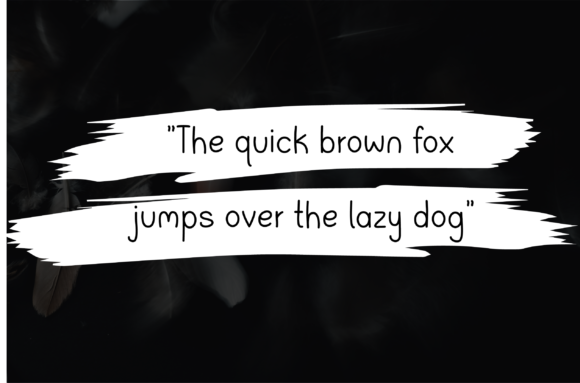
Introducing Good Dogo Font: The Perfect Handwritten Font for Chalkboard Quotes and Teaching Materials
Are you a designer, crafter, or educator looking for a font that can add a personal and realistic touch to your designs? Look no further than Good Dogo Font! This adorable and simple lettered handwritten font is perfect for creating chalkboard quotes, teaching materials, and other designs that require a warm and authentic feel.
What is Good Dogo Font?
Good Dogo Font is a carefully crafted handwritten font that mimics the look of chalkboard writing. Its authentic and rustic feel makes it ideal for creating designs that require a personal touch. The font is simple, yet elegant, making it perfect for a wide range of applications, from educational materials to social media graphics.
Key Features of Good Dogo Font
- Cute and Simple Design: Good Dogo Font features a cute and simple design that is easy to read and understand.
- Handwritten Style: The font has a handwritten style that gives it a personal and realistic feel.
- Chalkboard Look: The font mimics the look of chalkboard writing, making it perfect for creating chalkboard quotes and teaching materials.
- Authentic Feel: The font has an authentic feel that will add a warm and cozy touch to your designs.
Uses of Good Dogo Font
Good Dogo Font is a versatile font that can be used for a wide range of applications, including:
- Chalkboard Quotes: Create beautiful and inspiring chalkboard quotes that will add a personal touch to your designs.
- Teaching Materials: Use Good Dogo Font to create engaging and educational materials, such as worksheets, posters, and presentations.
- Social Media Graphics: Add a personal touch to your social media graphics, such as Instagram posts and Facebook updates.
- Crafting and Scrapbooking: Use Good Dogo Font to create beautiful and unique crafting and scrapbooking projects.
Benefits of Using Good Dogo Font
Using Good Dogo Font can bring several benefits to your designs, including:
- Unique and Personal Touch: Good Dogo Font will add a unique and personal touch to your designs, making them stand out from the crowd.
- Easy to Read: The font is easy to read and understand, making it perfect for creating educational materials and chalkboard quotes.
- Versatile: Good Dogo Font can be used for a wide range of applications, from educational materials to social media graphics.
- Time-Saving: Using a pre-made font like Good Dogo Font can save you time and effort, as you don’t have to create your own font from scratch.
Tips for Using Good Dogo Font
Here are some tips for using Good Dogo Font effectively:
- Use it for Headings and Titles: Good Dogo Font is perfect for creating headings and titles that require a personal touch.
- Pair it with Other Fonts: Pair Good Dogo Font with other fonts to create a unique and visually appealing design.
- Experiment with Colors: Experiment with different colors to find the perfect combination that works with Good Dogo Font.
- Use it for Digital and Print Designs: Good Dogo Font can be used for both digital and print designs, making it a versatile font for designers and crafters.
Good Dogo Font is a beautiful and versatile handwritten font that is perfect for designers, crafters, and educators. Its authentic and rustic feel makes it ideal for creating chalkboard quotes, teaching materials, and other designs that require a personal touch. With its ease of use, versatility, and unique design, Good Dogo Font is a must-have font for anyone looking to add a personal touch to their designs.